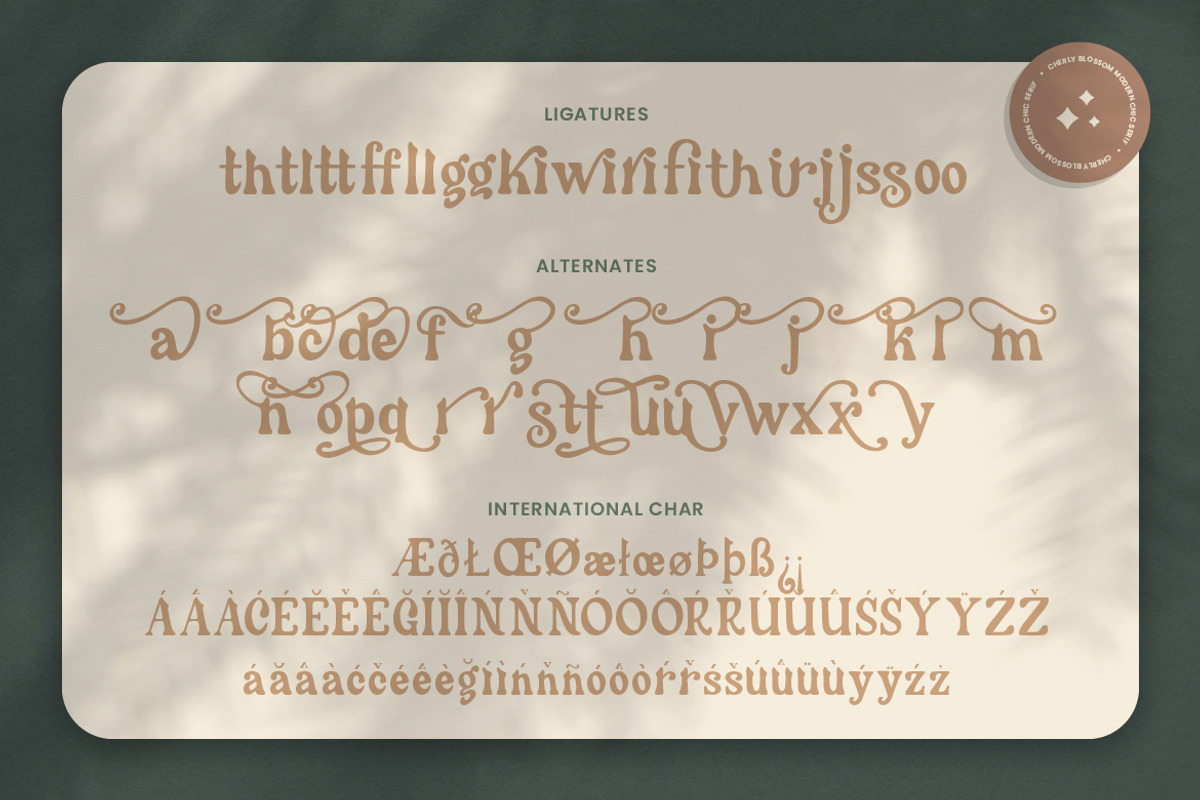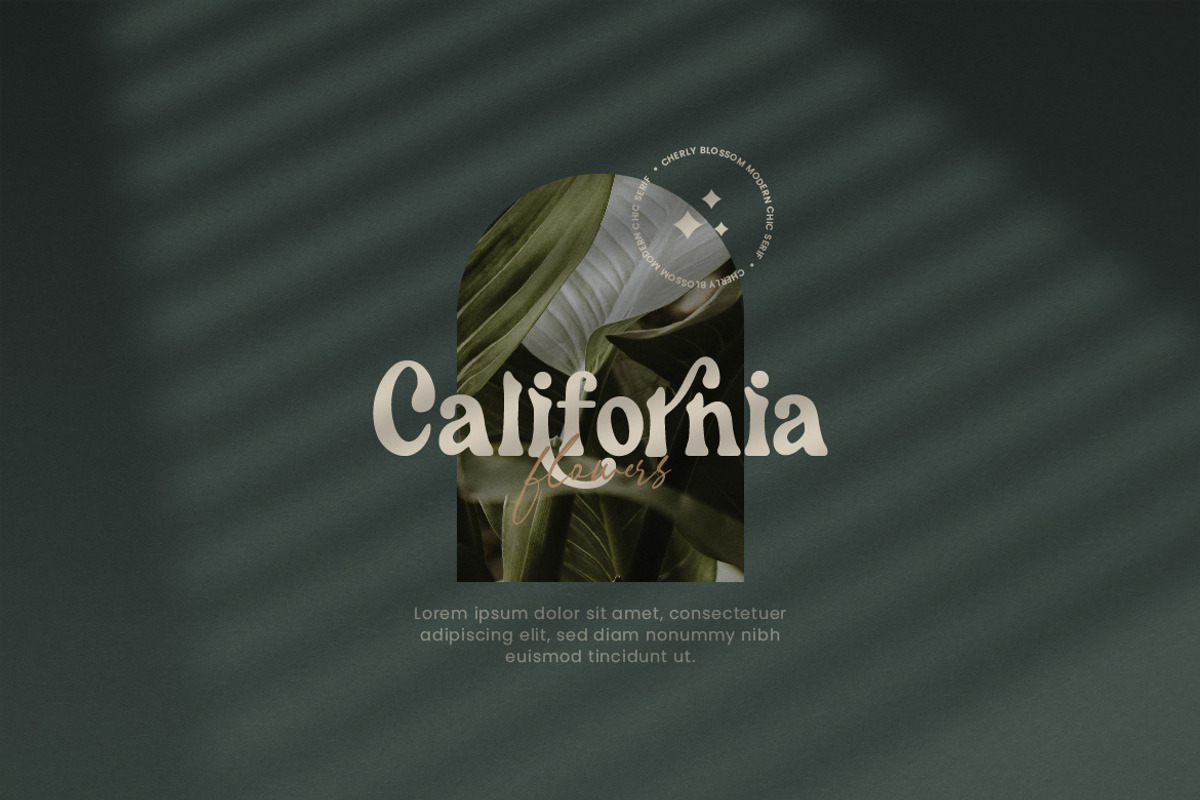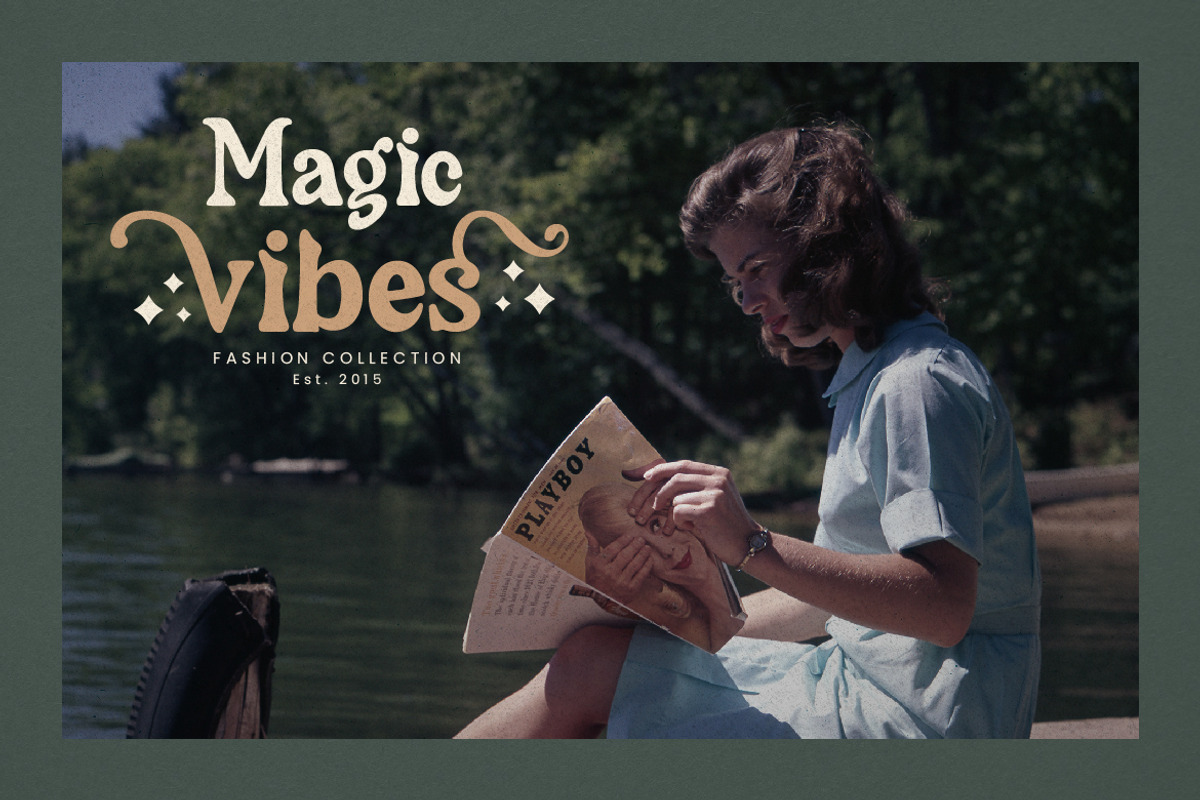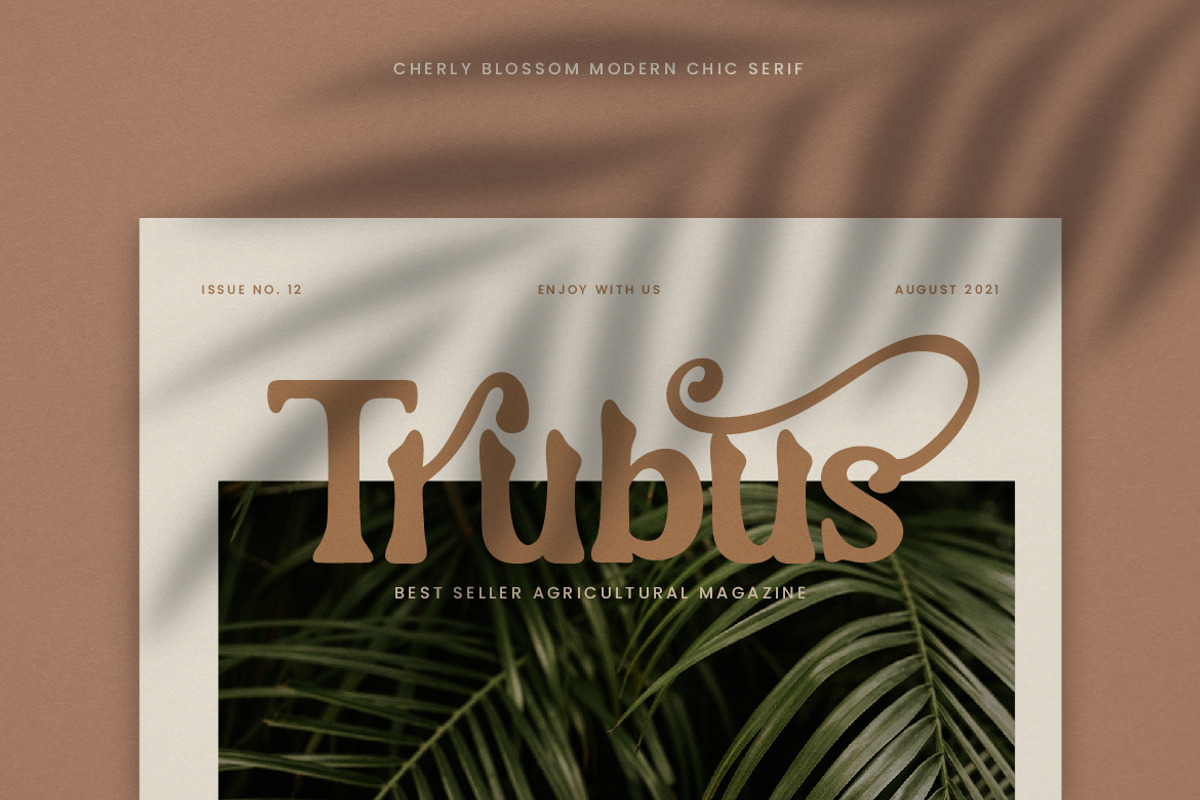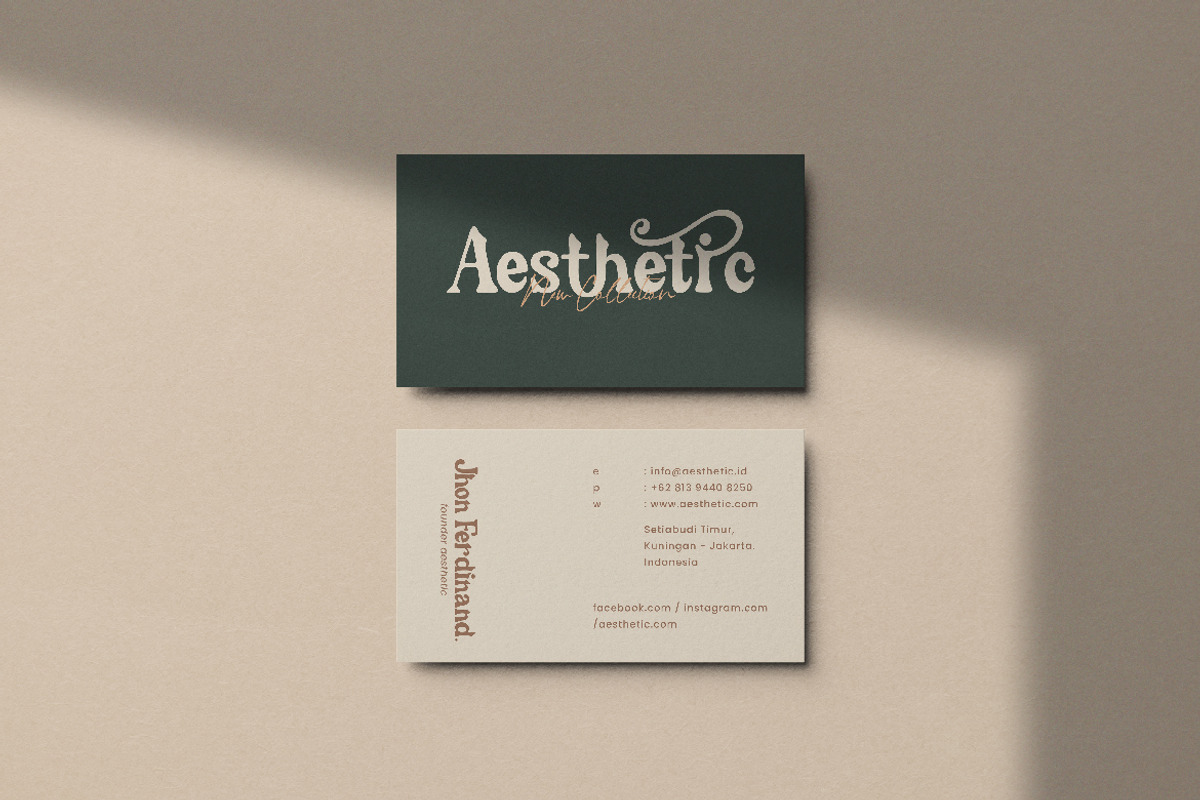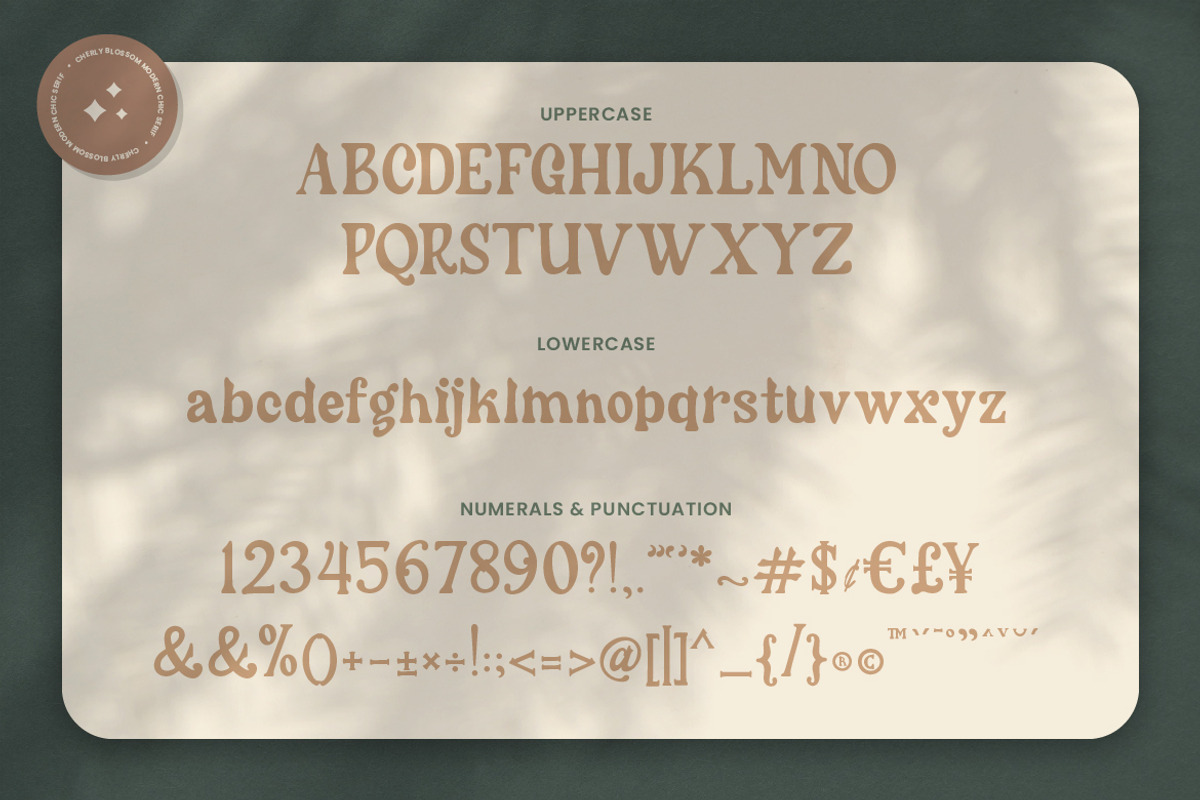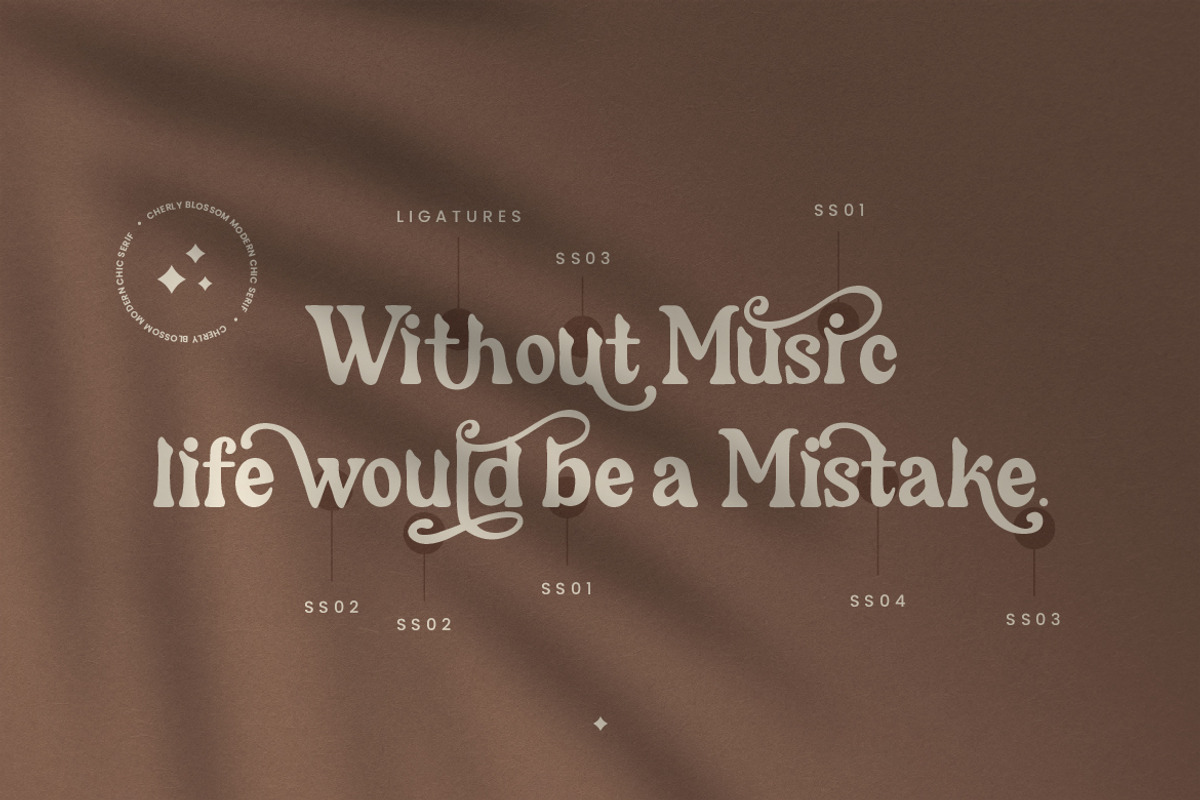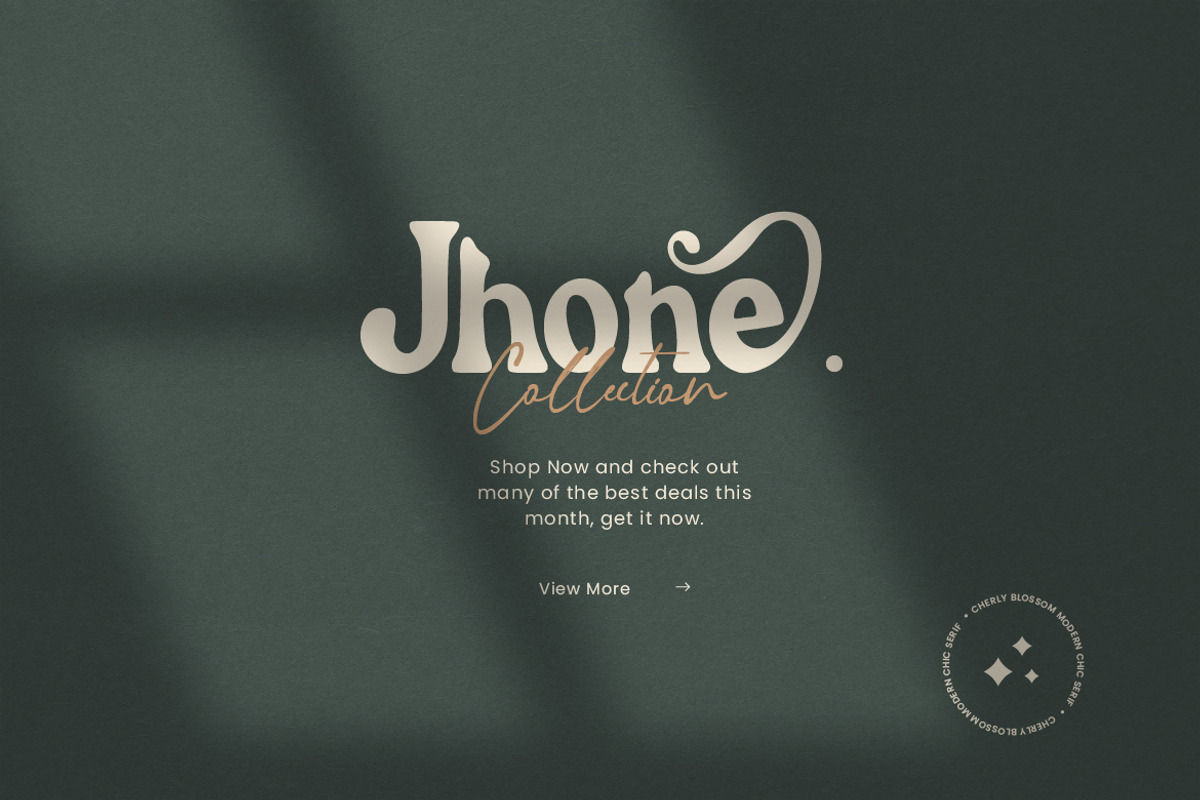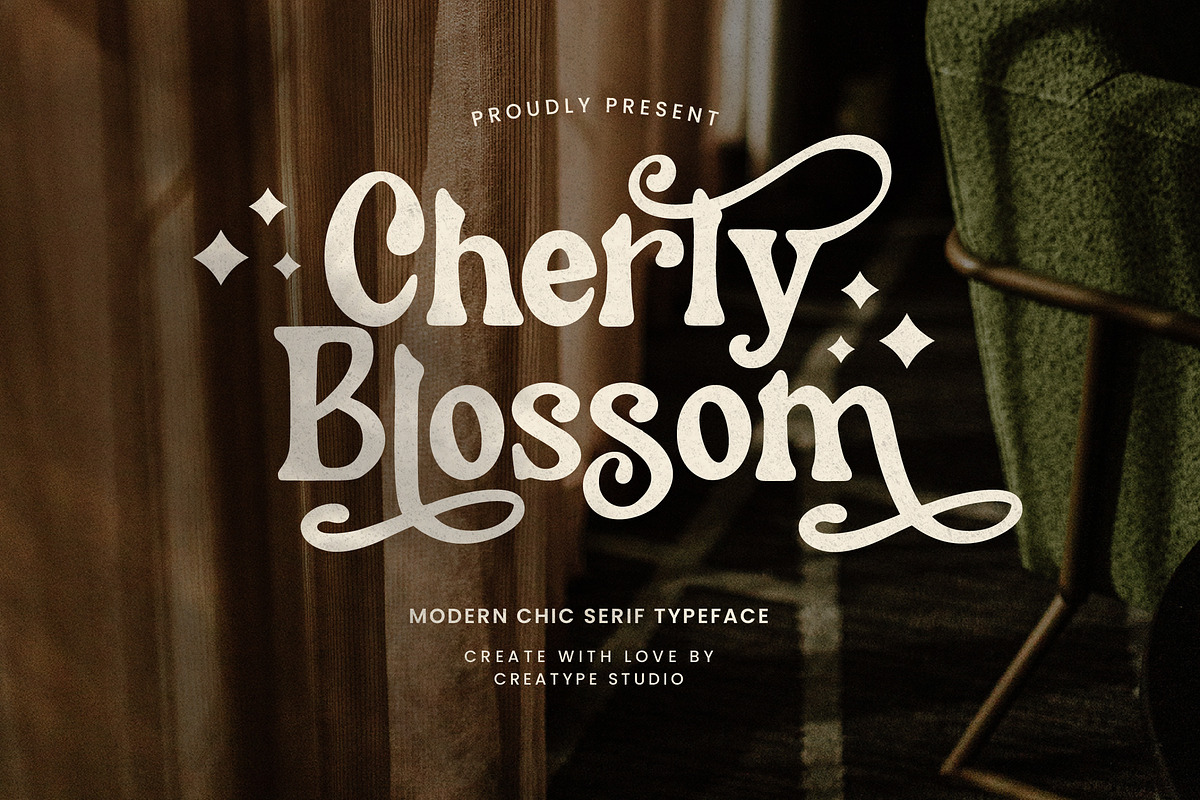
Cherly Blossom Modern Chic Serif
Cherly Blossom Modern Chic Serif is a stylish font that is both retro modern with a bold font that looks elegant.
Cherly Blossom is perfect for branding projects, logo, wedding designs, social media posts, advertisements, product packaging, product designs, label, photography, watermark, invitation, stationery and any projects that need handwriting taste.
- Ligature & Alternate